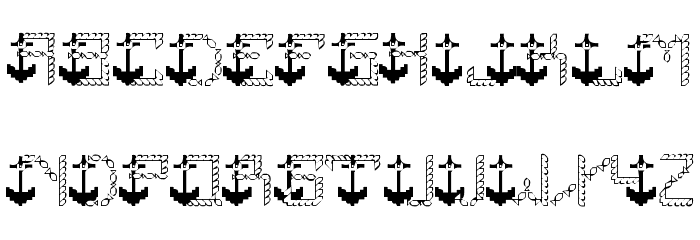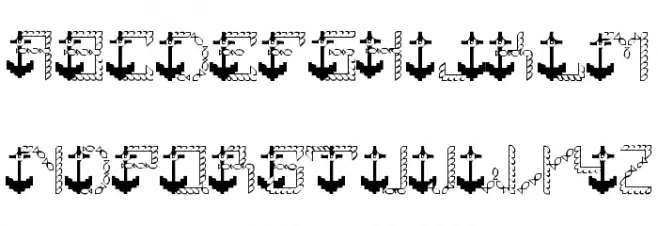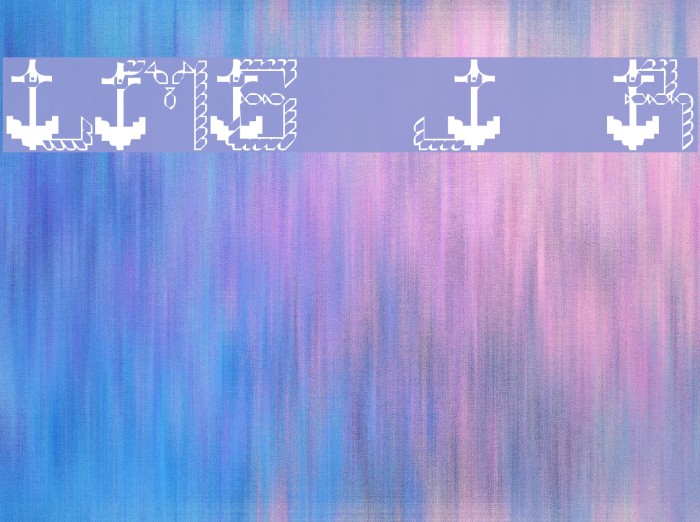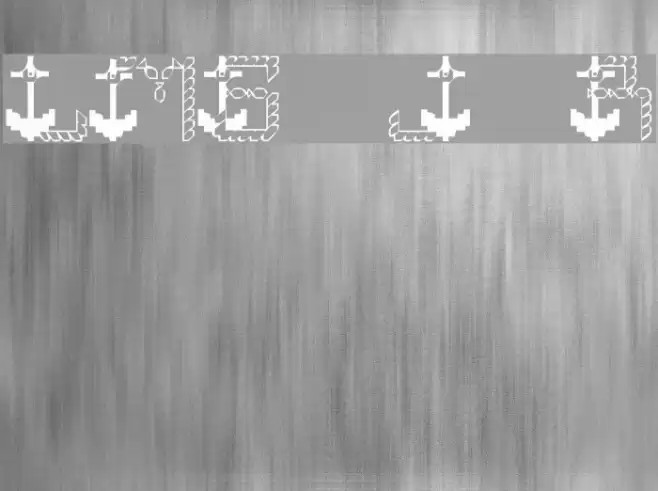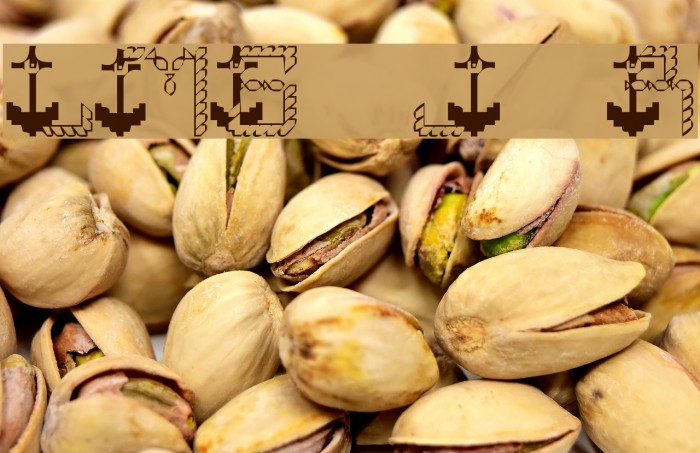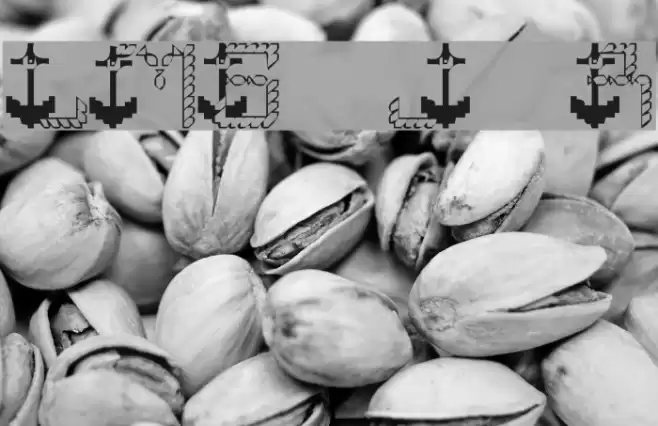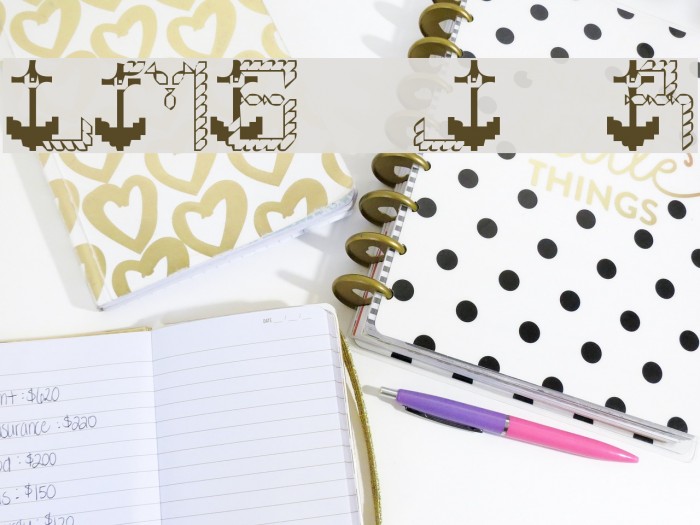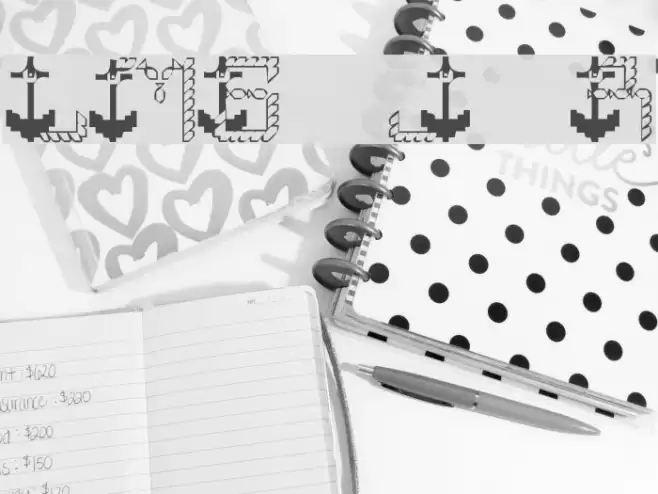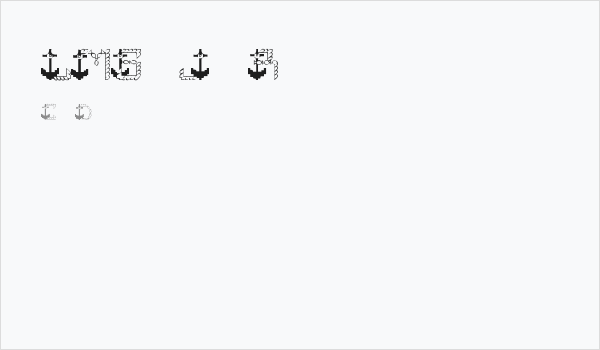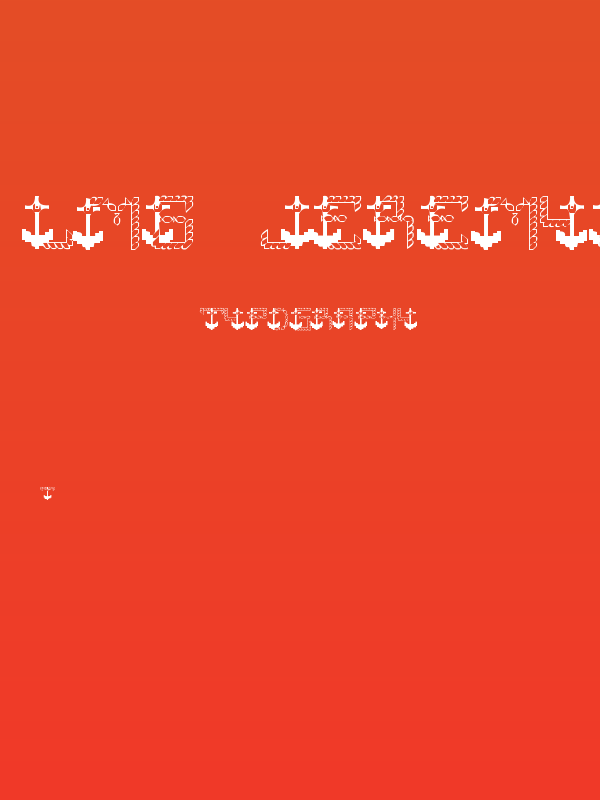
LMS Jeremy's Rigging Font
LMS Jeremy's Rigging Description
This font features a nautical theme, with each character incorporating elements reminiscent of ropes and anchors. The letters are constructed with a bold outline, giving them a sturdy and robust appearance. The unique design integrates maritime motifs, making it ideal for projects that require a sea-inspired aesthetic. The characters are evenly spaced, ensuring readability while maintaining the decorative elements. The font's playful yet structured style makes it suitable for creative and thematic applications.
| Use Case | Logos, Headlines, Themed Events |
| Proposed Projects | Ideal for maritime-themed posters, event invitations, children's books, and nautical branding. |